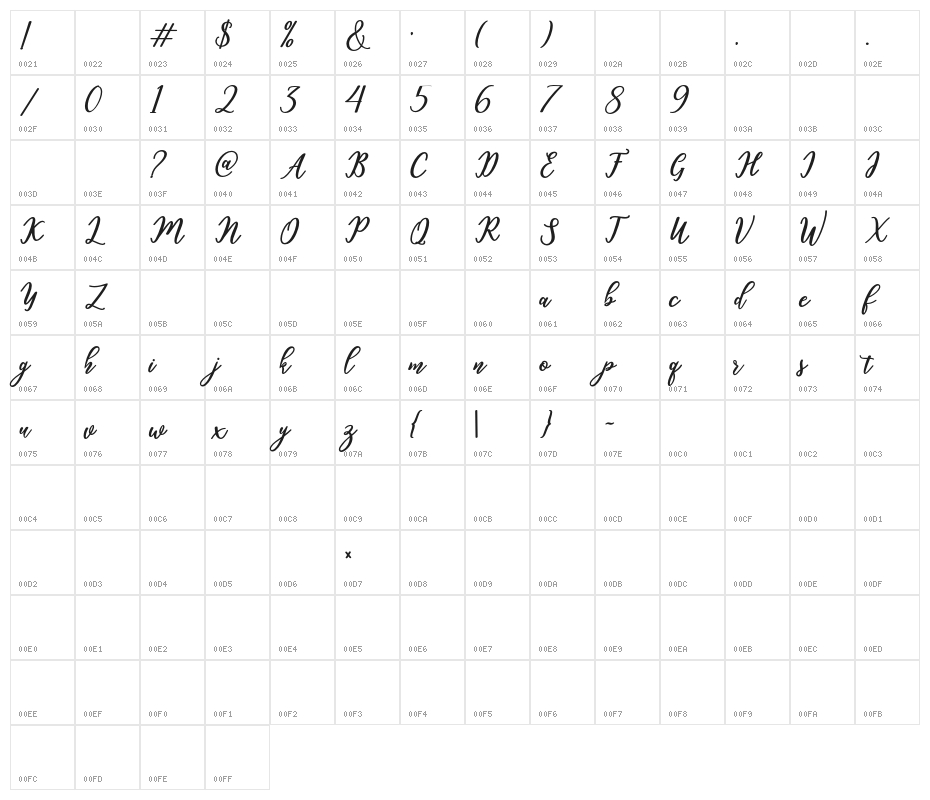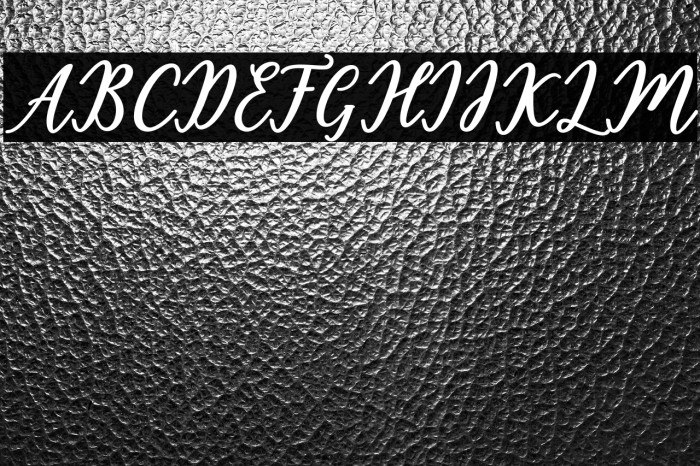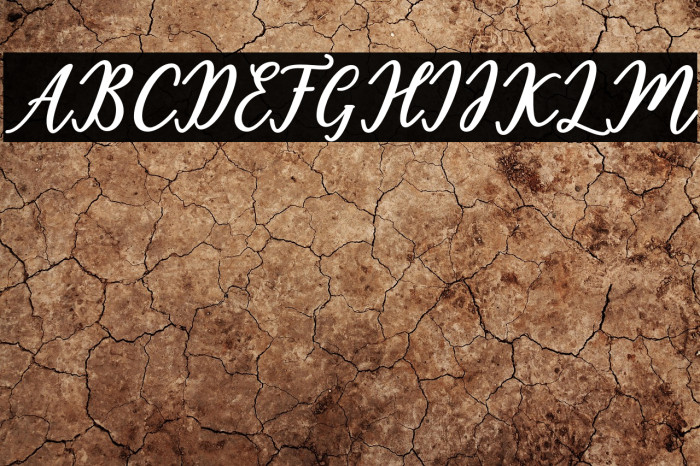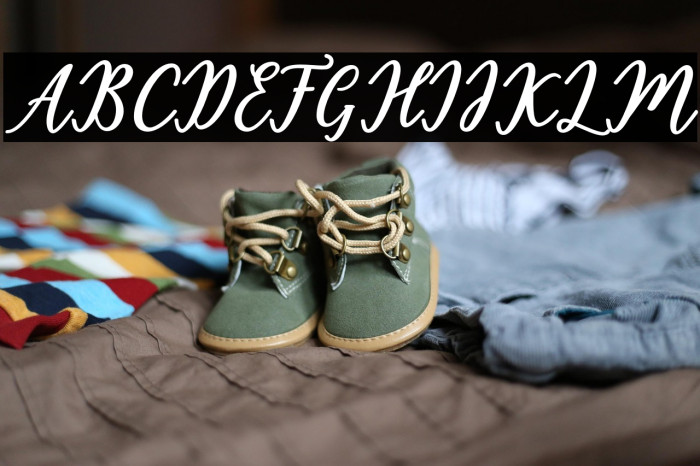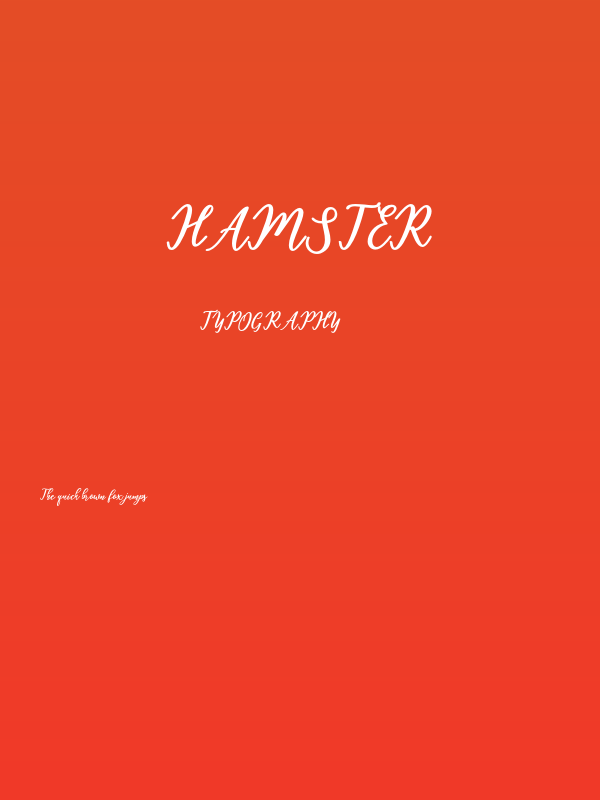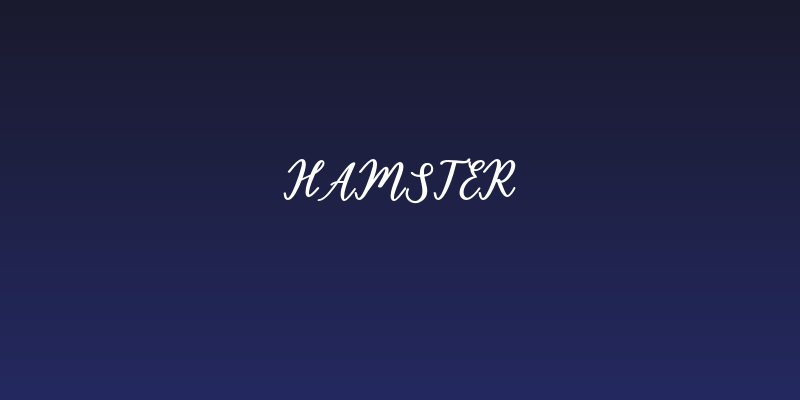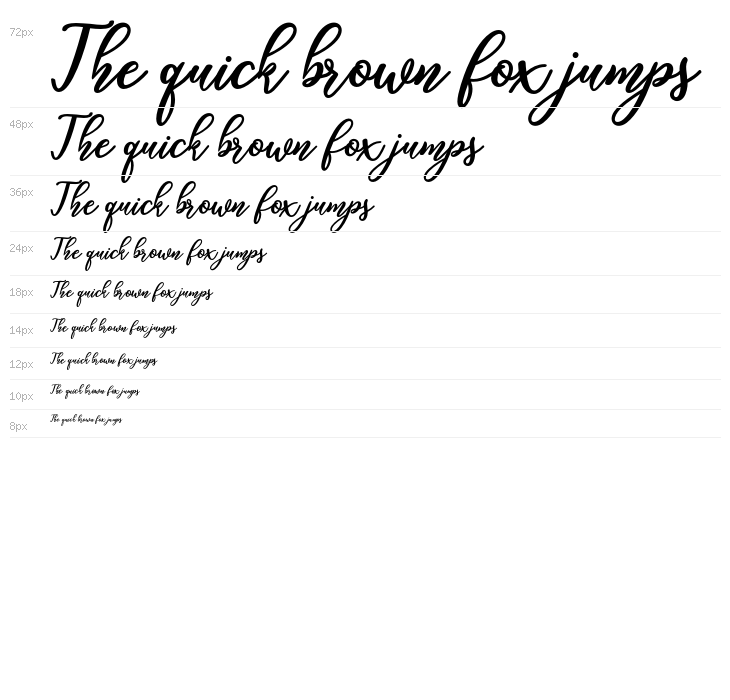
hamster Font
hamster Description
This font features a flowing, cursive style with elegant, sweeping lines that give it a handwritten appearance. The uppercase letters are bold and slightly slanted, adding a dynamic and sophisticated touch. The lowercase letters maintain a consistent flow, with smooth connections between each character, enhancing its script-like quality. Numbers and special characters are designed to match the overall aesthetic, ensuring a cohesive look across all text. This font exudes a sense of elegance and creativity, making it suitable for various design projects that require a personal and artistic touch.
| Overall Style | Elegant, Artistic |
| Use Case | Logos, Invitations, Artistic Text |
| Proposed Projects | Ideal for wedding invitations, greeting cards, personal branding, and artistic projects. |